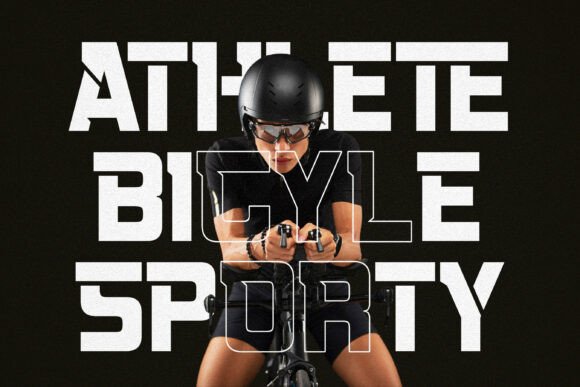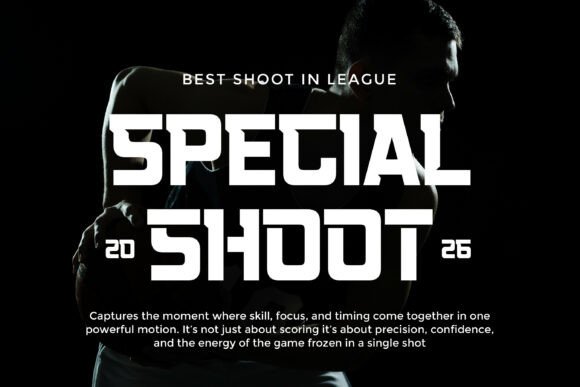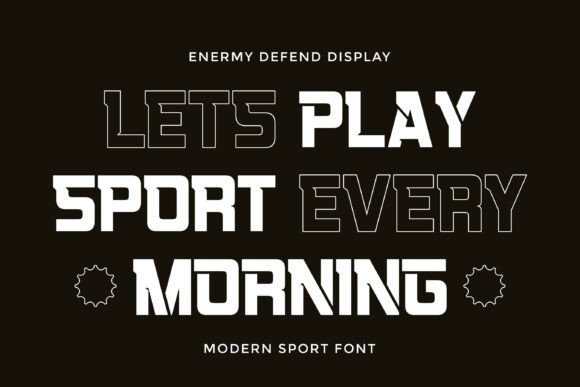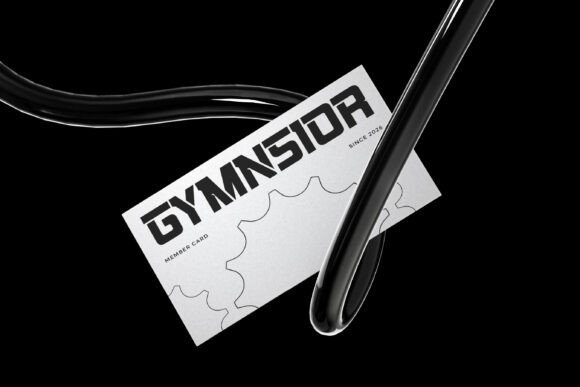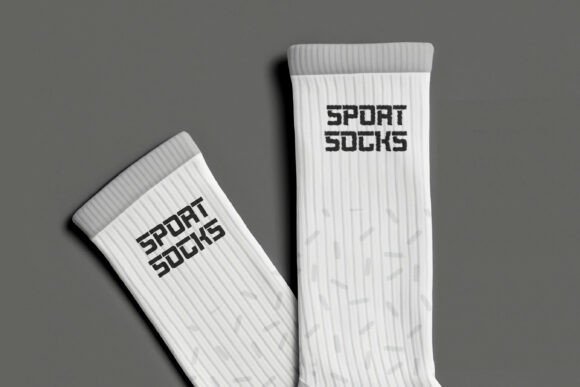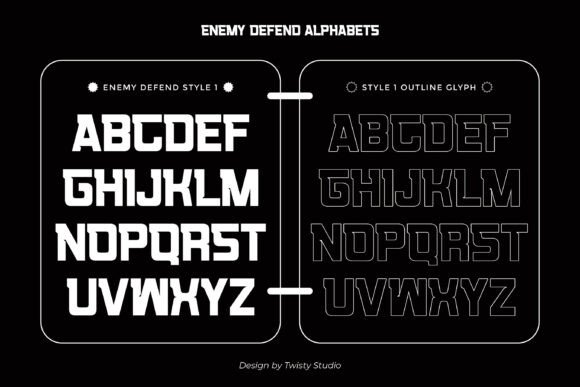
Introducing Enemy Defend Font: The Ultimate Modern Sport Display Font
In the world of typography, fonts play a crucial role in conveying the tone and personality of a design. For designers and crafters looking to create bold and attention-grabbing visuals, Enemy Defend Font is an exceptional choice. This modern sport display font is specifically designed to deliver a powerful and competitive look, making it perfect for projects that require a strong and intense visual impact.
Design Characteristics of Enemy Defend Font
Enemy Defend Font boasts a bold, tactical, and high-impact design that sets it apart from other fonts. Its sharp edges, strong angles, and solid structure give it an aggressive style that reflects strength, energy, and determination. The font’s design is carefully crafted to evoke a sense of competitiveness and dynamism, making it ideal for use in sports-related designs, such as team logos, jerseys, and advertising materials.
Key Features of Enemy Defend Font
• Bold and Tactical Design: Enemy Defend Font features a bold and tactical design that commands attention and exudes confidence.
• Sharp Edges and Strong Angles: The font’s sharp edges and strong angles give it a rugged and aggressive look that is perfect for designs that require a strong visual impact.
• Solid Structure: The font’s solid structure provides a sense of stability and strength, making it suitable for use in a wide range of design applications.
• Aggressive Style: Enemy Defend Font’s aggressive style reflects strength, energy, and determination, making it perfect for designs that need to feel intense and action-driven.
Use Cases for Enemy Defend Font
Enemy Defend Font is a versatile font that can be used in a variety of design applications, including:
• Sports Team Logos: The font’s bold and tactical design makes it perfect for use in sports team logos, jerseys, and advertising materials.
• Advertising and Marketing Materials: Enemy Defend Font’s aggressive style and strong visual impact make it suitable for use in advertising and marketing materials, such as billboards, posters, and flyers.
• Game Design: The font’s bold and competitive design makes it a great choice for use in game design, particularly for games that require a strong and intense visual identity.
• Fitness and Wellness Branding: Enemy Defend Font’s design characteristics make it suitable for use in fitness and wellness branding, such as gym logos, fitness apparel, and health-related advertising materials.
Why Choose Enemy Defend Font?
Enemy Defend Font is an exceptional choice for designers and crafters looking to create bold and attention-grabbing visuals. Here are some reasons why:
• Unique Design: Enemy Defend Font features a unique design that sets it apart from other fonts, making it perfect for designers looking to create distinctive visuals.
• High-Impact Visuals: The font’s bold and tactical design delivers high-impact visuals that instantly grab attention.
• Versatility: Enemy Defend Font is a versatile font that can be used in a wide range of design applications, from sports team logos to advertising materials.
Enemy Defend Font is a modern sport display font that delivers a powerful and competitive look, making it perfect for designs that require a strong and intense visual impact. With its bold and tactical design, sharp edges, strong angles, and solid structure, this font is sure to grab attention and leave a lasting impression. Whether you’re a designer or crafter looking to create sports team logos, advertising materials, or game design elements, Enemy Defend Font is an exceptional choice.